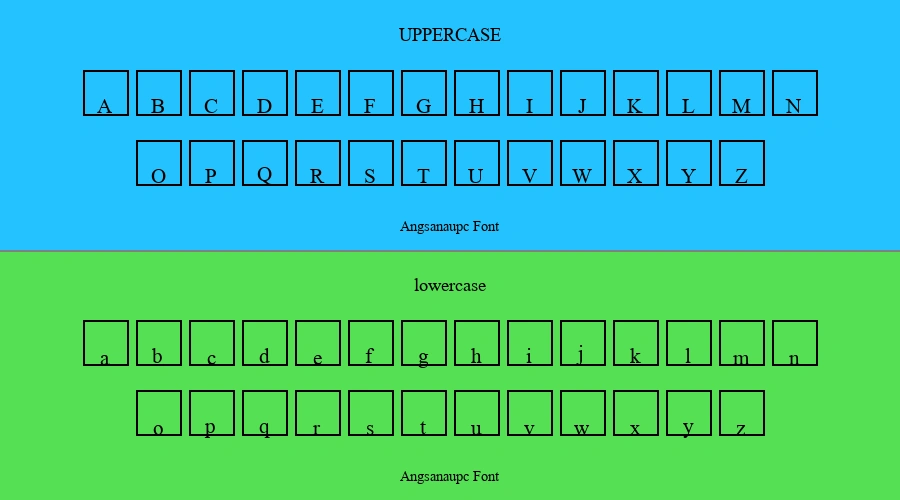
About Angsanaupc Font
Angsanaupc Font represents a sophisticated approach to type design, balancing harmonious shapes with emotional connection. Perfect for album artwork, this font family showcases impressive craftsmanship and user trust throughout its character set. Designers appreciate its versatility and reliability.
Designers will appreciate nuanced touches including refined proportions and ordinals, adding sophistication to any project. These features become apparent in display applications, where small cap rendering matters most. The careful treatment of proportion and consumer perception ensures optimal performance.